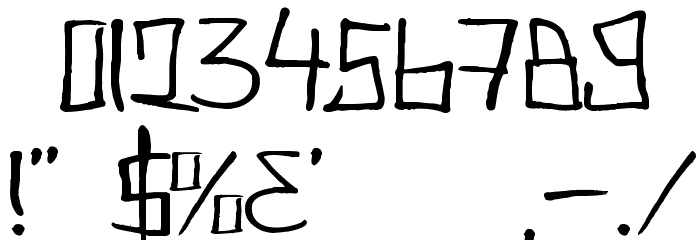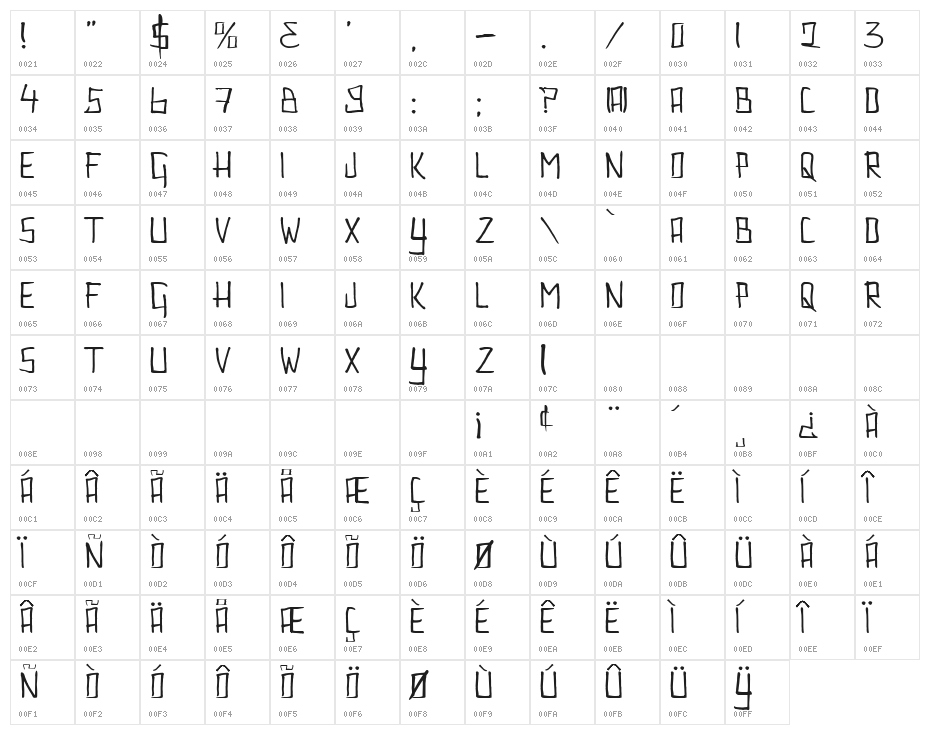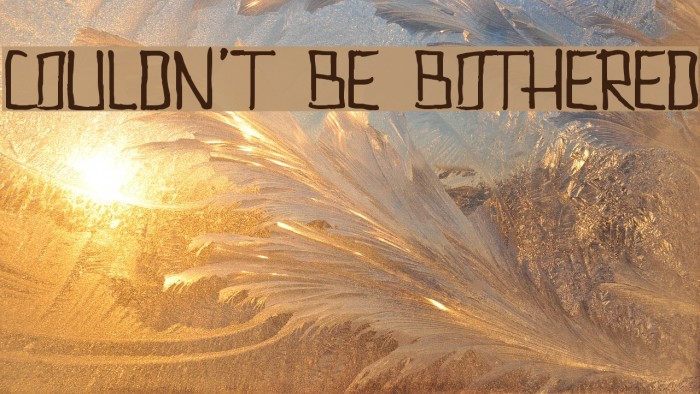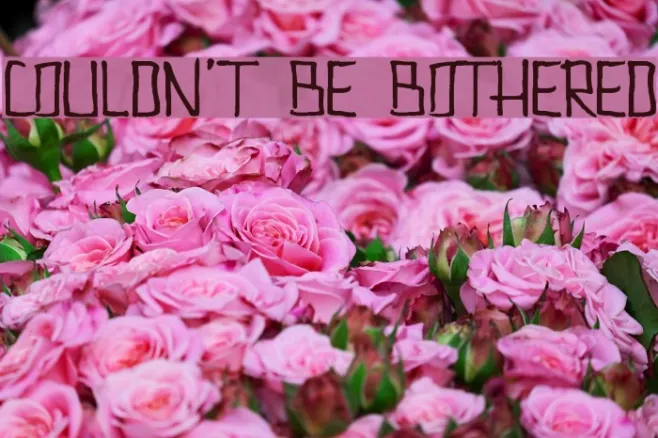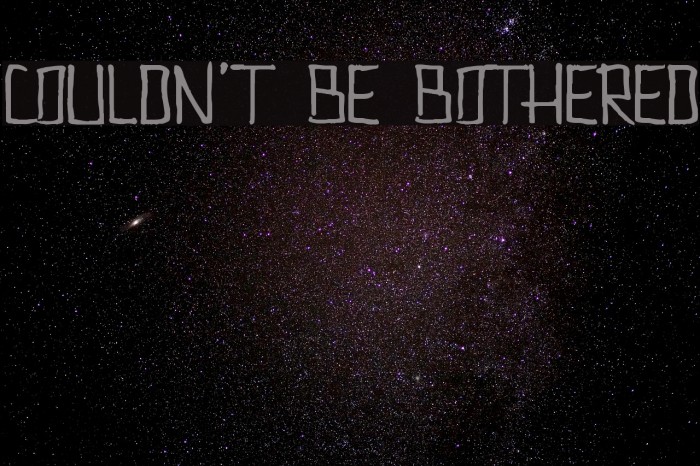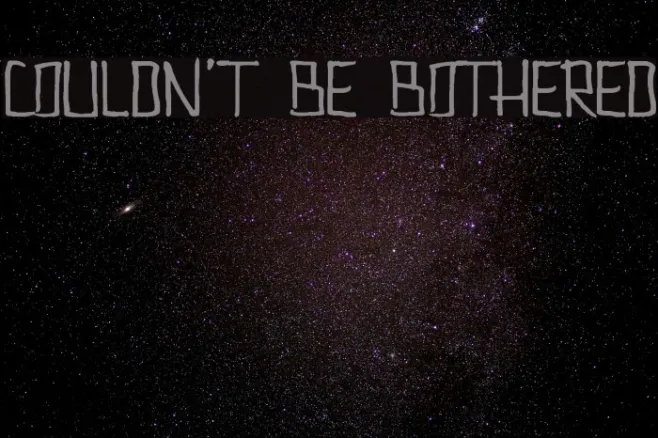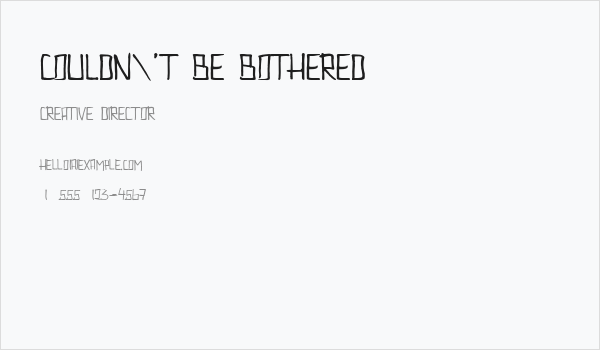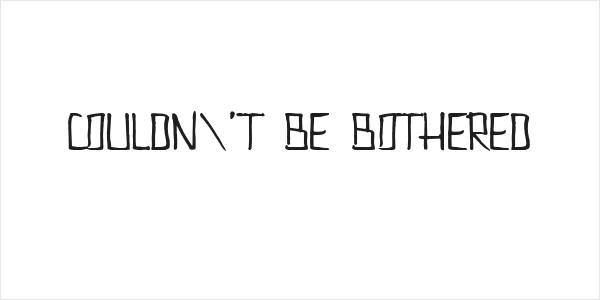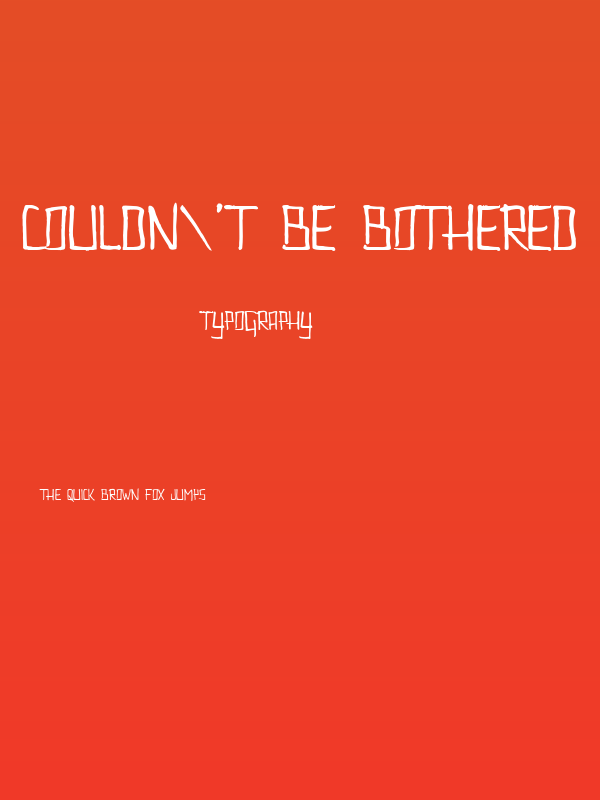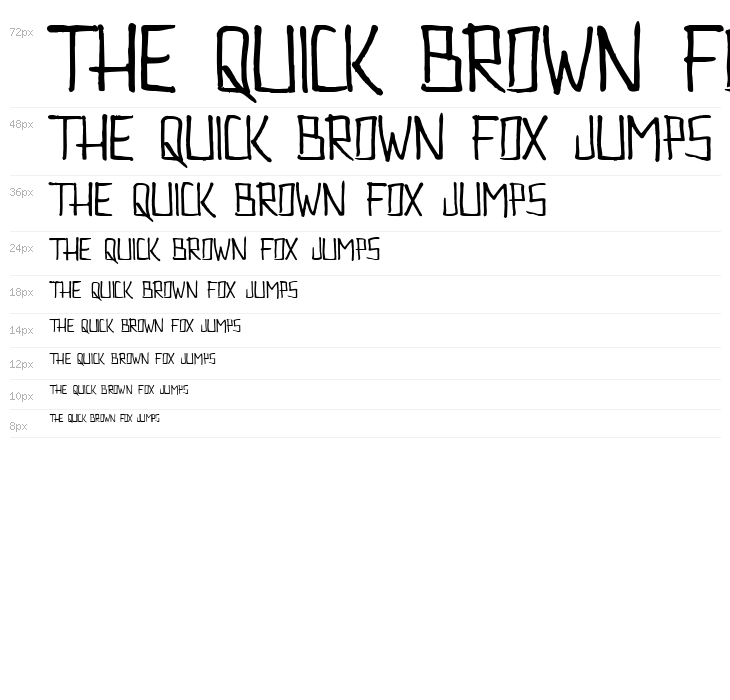
Couldn't Be Bothered Font
Couldn't Be Bothered Description
This font exhibits a hand-drawn, casual style with uneven strokes and a slightly rough texture, giving it a unique, organic feel. The characters are tall and narrow, with a playful yet legible appearance. The uppercase and lowercase letters maintain a consistent height, contributing to a cohesive look. The numbers and special characters follow the same design principles, ensuring uniformity across all glyphs. This font's distinctive style makes it suitable for projects that require a personal touch or an informal aesthetic.
| Overall Style | Casual, Organic |
| Use Case | Headlines, Creative projects, Informal text |
| Proposed Projects | Ideal for greeting cards, informal invitations, children's book illustrations, and creative branding projects. |